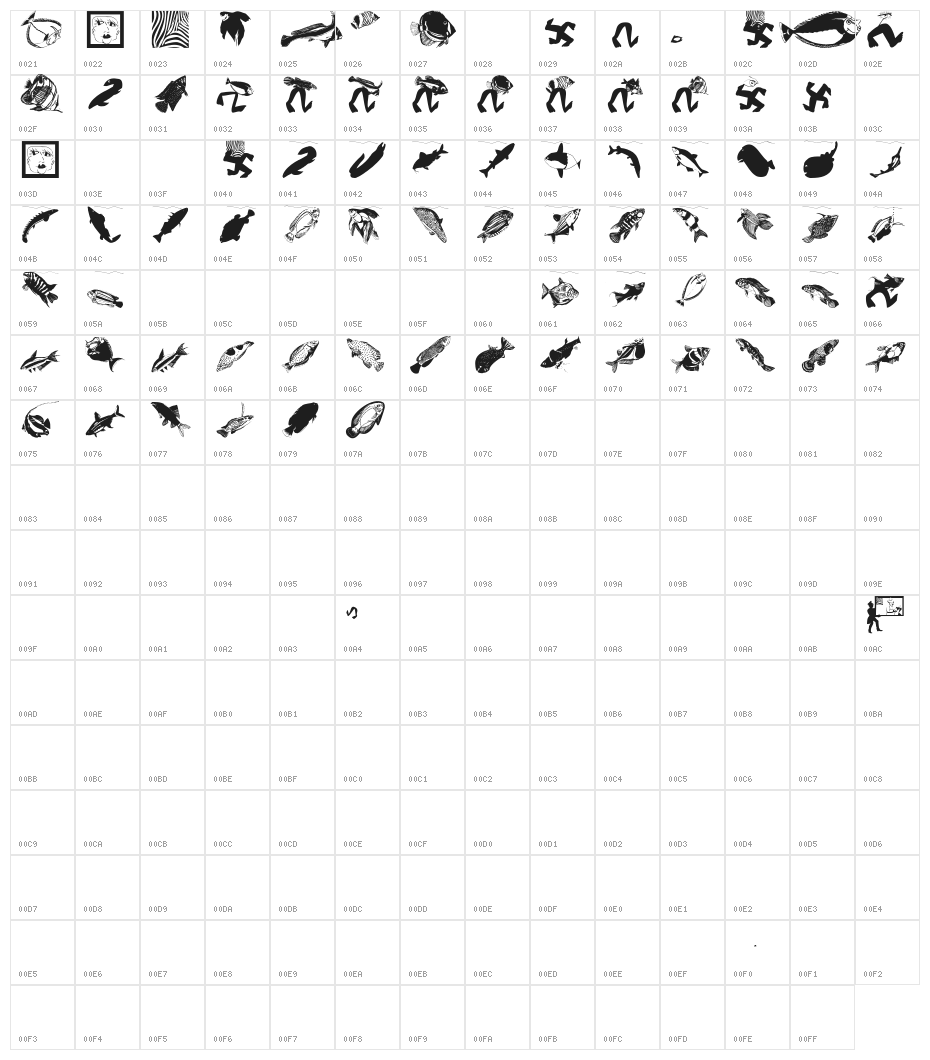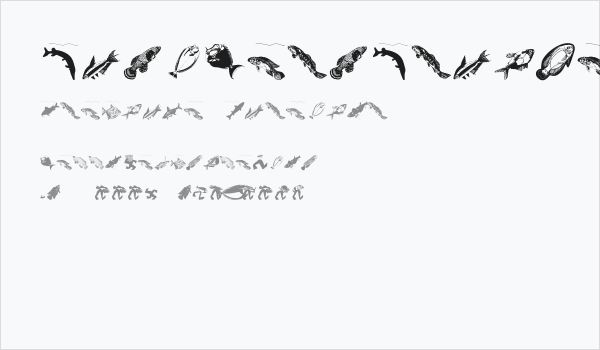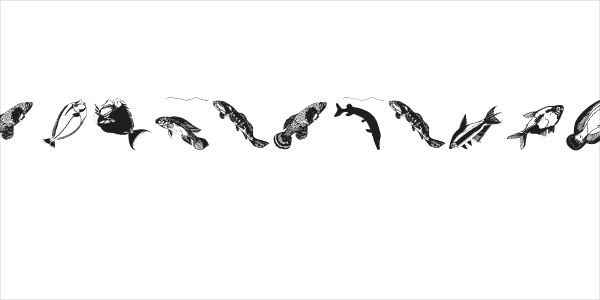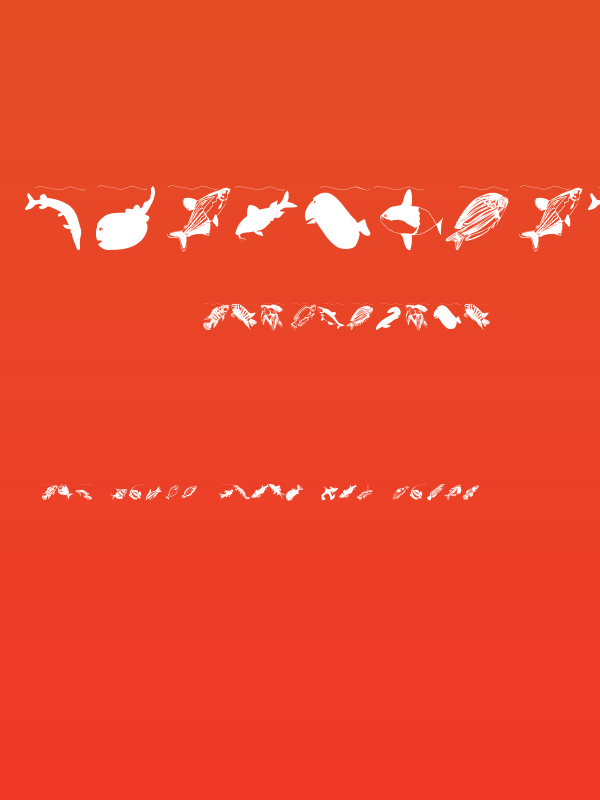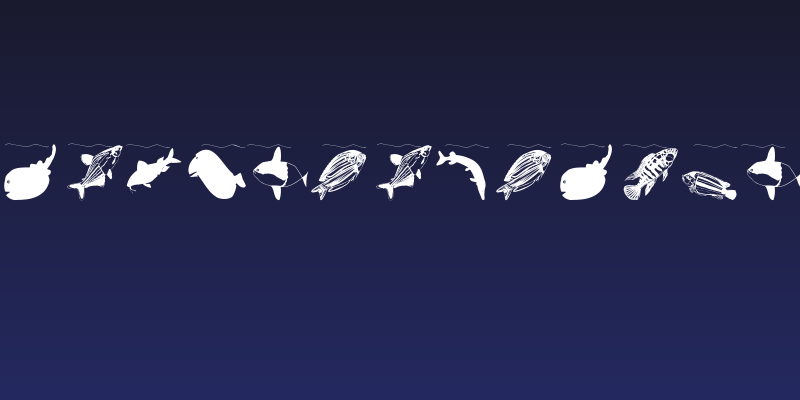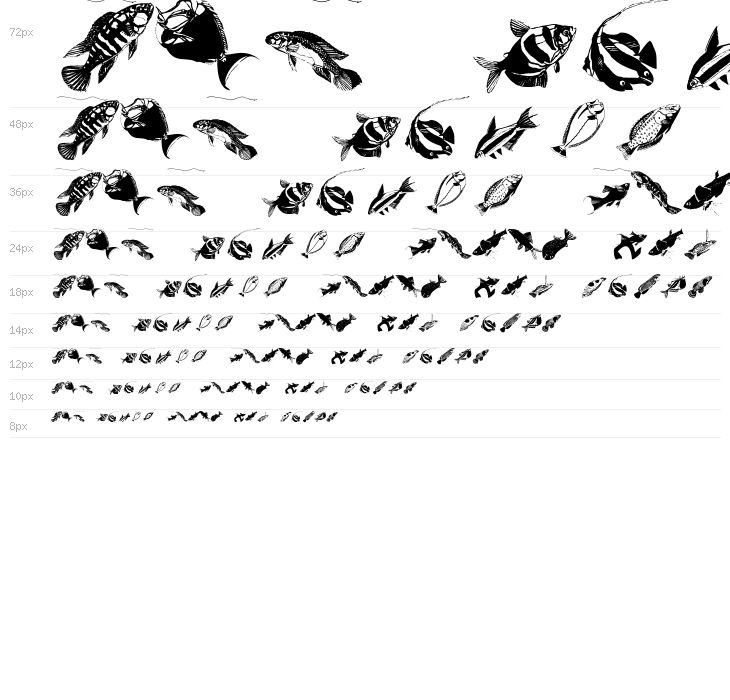
FischersFritzen Font
FischersFritzen Description
A highly decorative font composed entirely of detailed black-and-white fish and aquatic creature illustrations, each character represented by a unique fish silhouette or diver figure, resulting in a playful and thematic visual style.
| Overall Style | Decorative, Playful, Thematic |
| Use Case | Logos, Posters, Headlines, Themed graphics |
| Proposed Projects | Aquarium branding, children's books, marine-themed posters, educational materials, playful event invitations. |